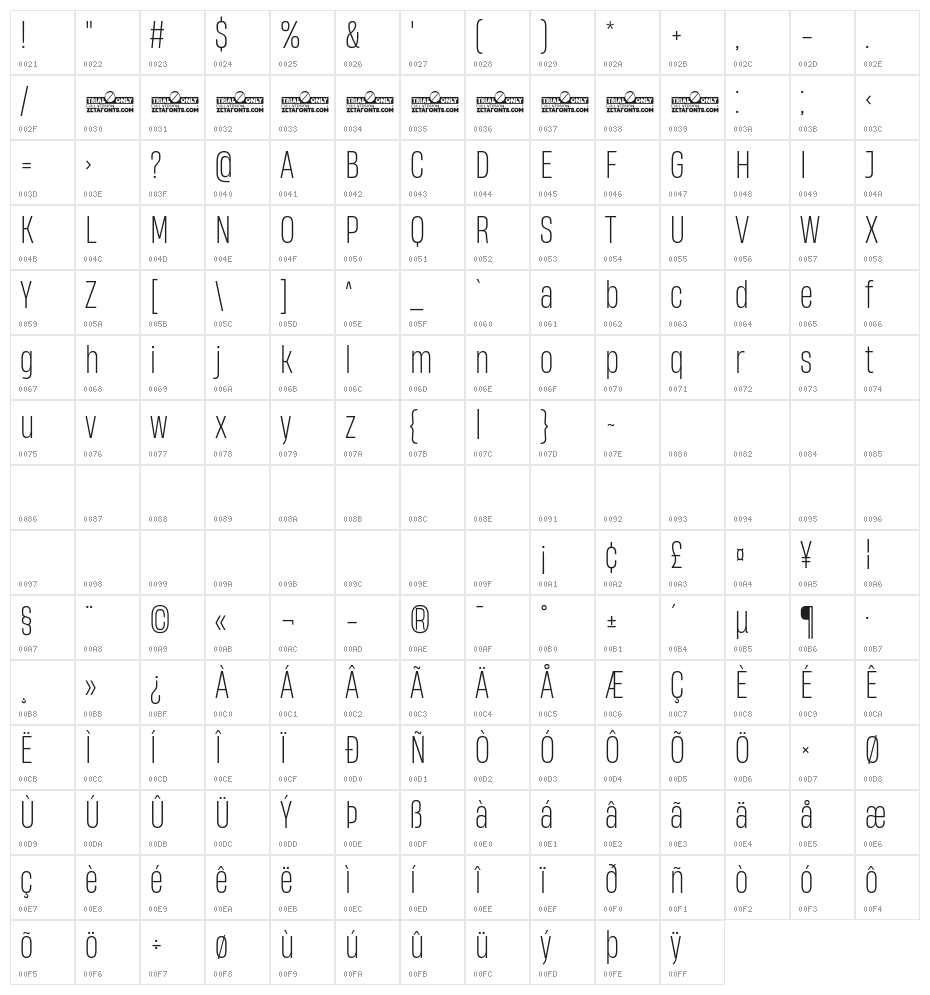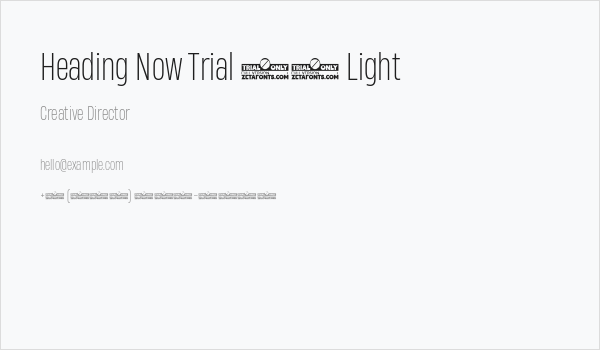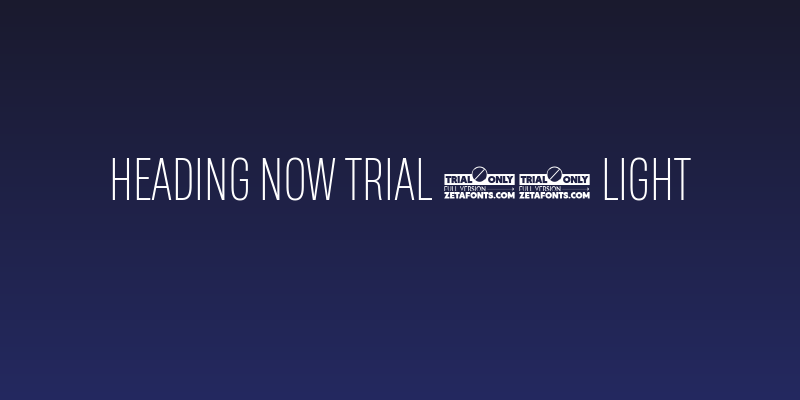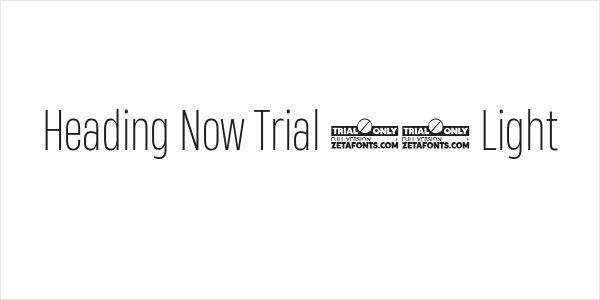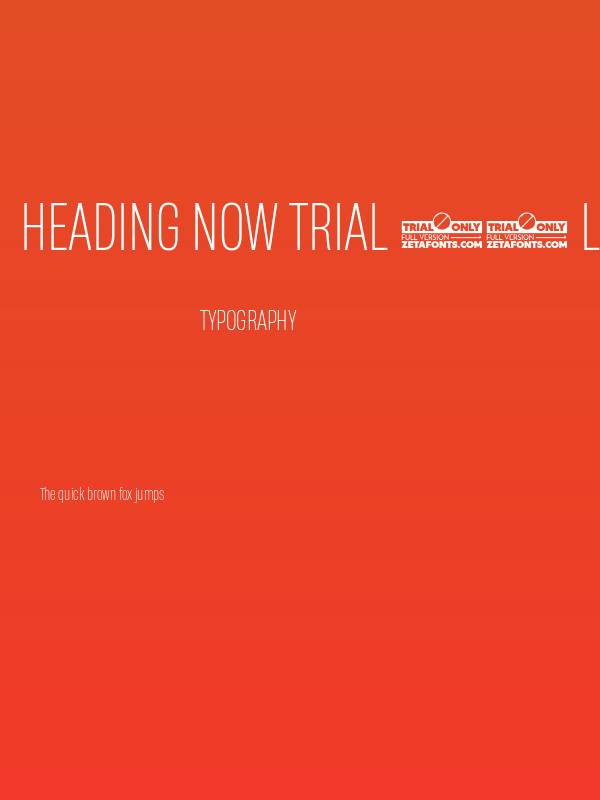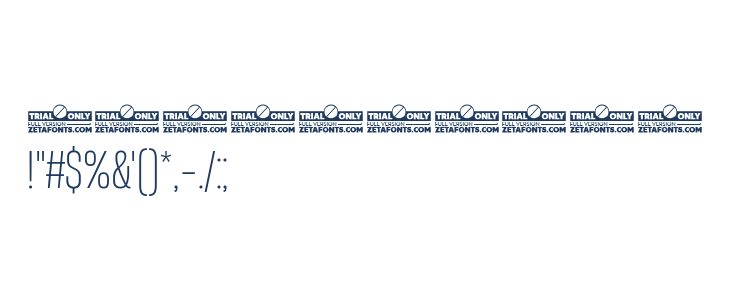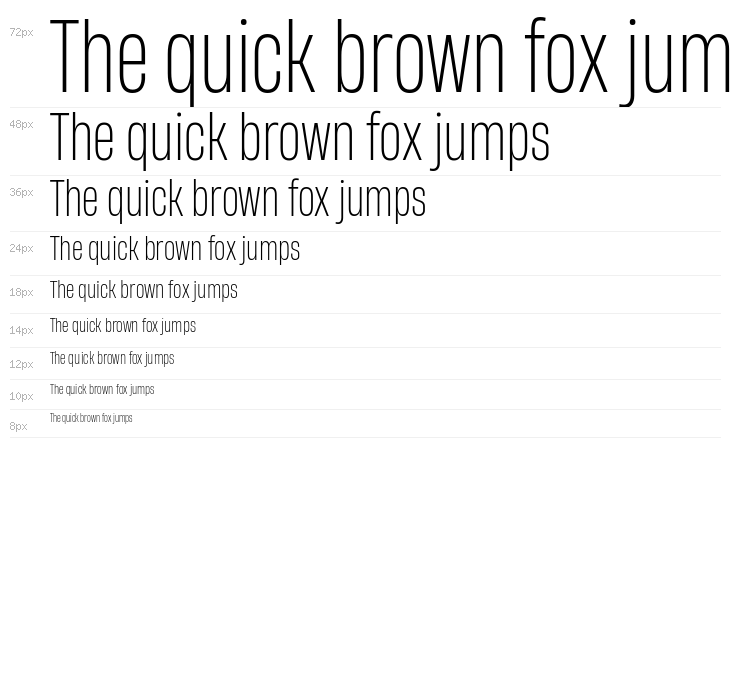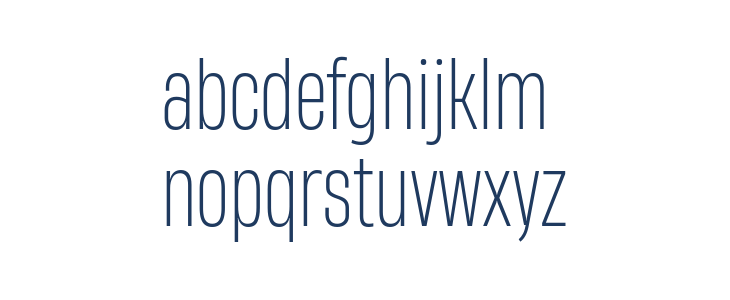
Heading Now Trial 42 Light Font
Heading Now Trial 42 Light Description
This font features a clean, modern sans-serif style with a light weight, making it ideal for contemporary design projects. The characters are tall and narrow, with a consistent stroke width that gives it a sleek and minimalist appearance. The uppercase and lowercase letters maintain a uniform height, contributing to its streamlined look. The spacing between characters is normal, ensuring readability while maintaining its elegant aesthetic. The font includes a full set of uppercase and lowercase letters, numbers, and a variety of special characters, making it versatile for various applications.
| Proposed Projects | Ideal for use in branding, editorial design, websites, and advertising where a modern and clean look is desired. |